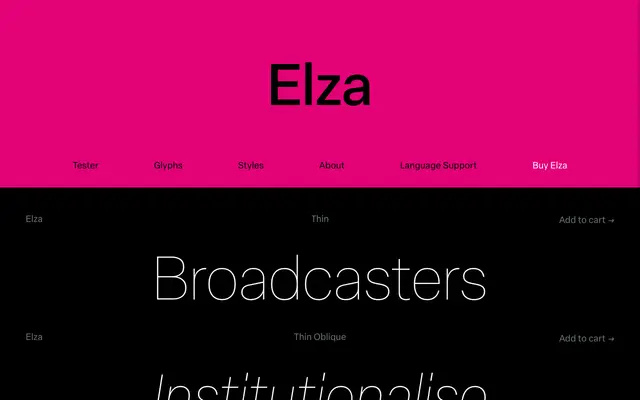
Elza
A rigorously systematised neo-grotesque by Daniel Sabino, extending the logic of Helvetica and Univers through squarer curves and a deliberately characterless construction.
Released in 2021, Elza takes the neo-grotesque tradition's drive for consistency and pushes it further: round letters carry small straight segments on their sides that help maintain coherence across widths and give the forms a mechanised, almost clinical quality. The family spans eight weights from Thin to Black with matching obliques across standard, Narrow and Condensed widths, plus related subfamilies including Elza Text and Elza Round. A variable version covers weight, width and slant axes, and each font carries around 900 glyphs with broad Latin language support, small caps, tabular and old-style figures, and a single-storey alternate /a.
Designed explicitly within the neo-grotesque tradition, with Helvetica and Univers as primary references, and deliberately pushing that genre's systematisation and mechanisation further through squared curves and straight-segment construction on round letters.